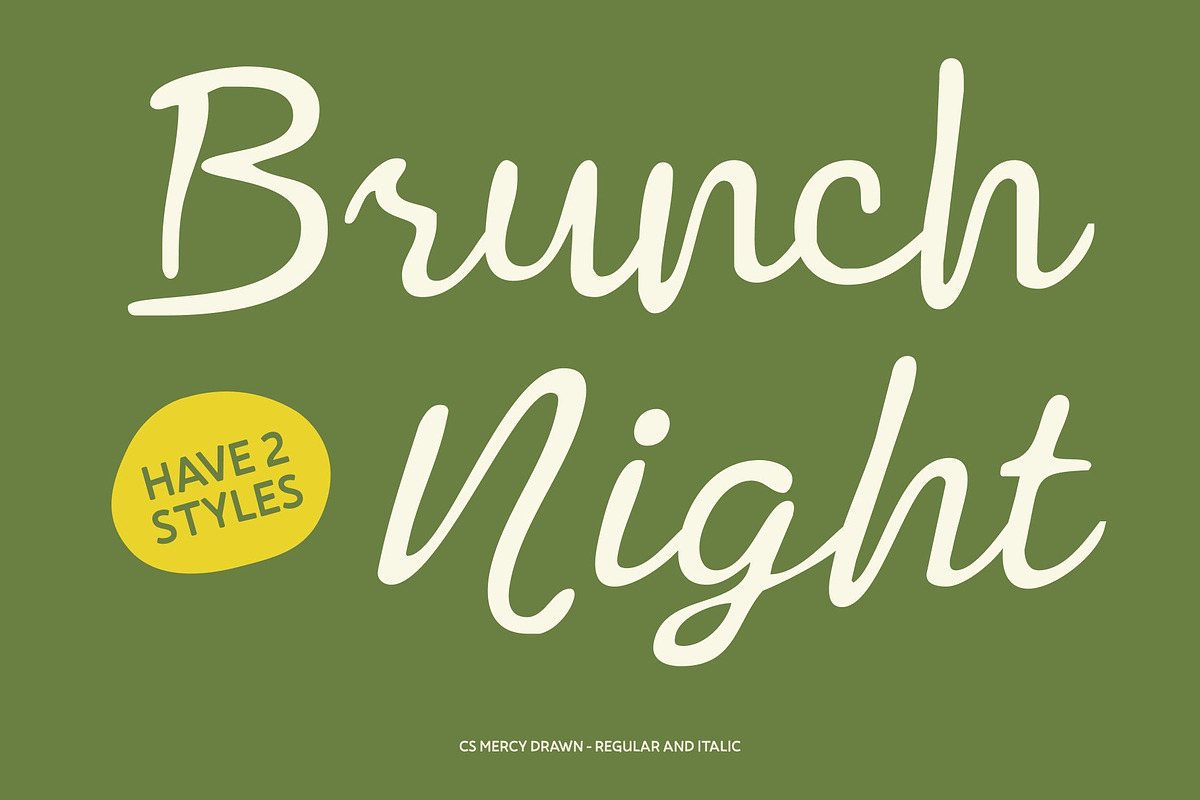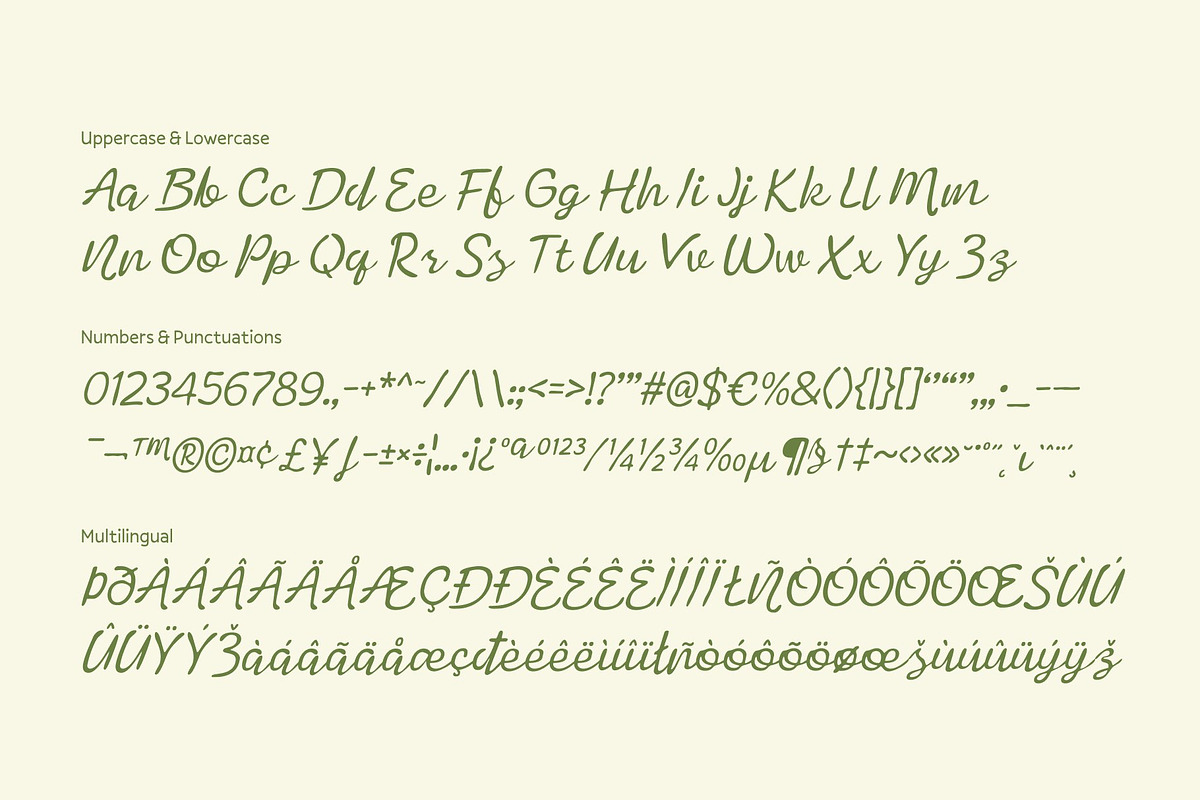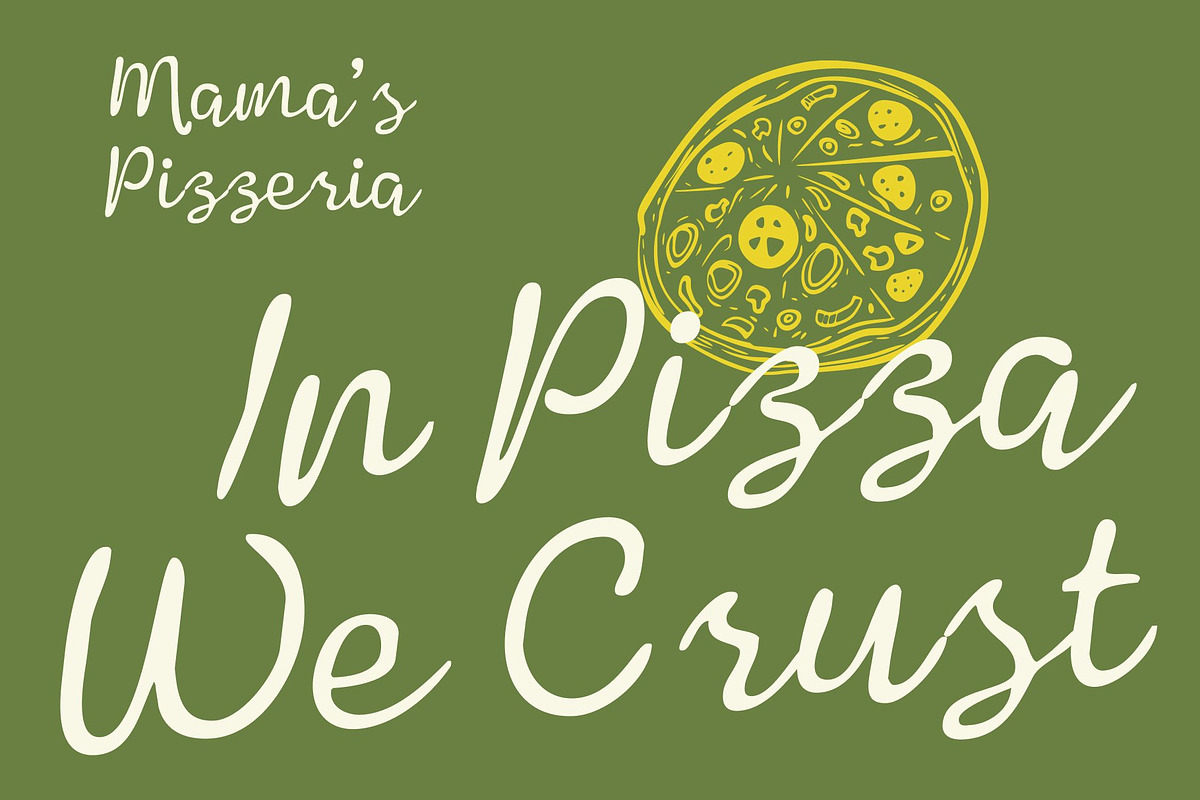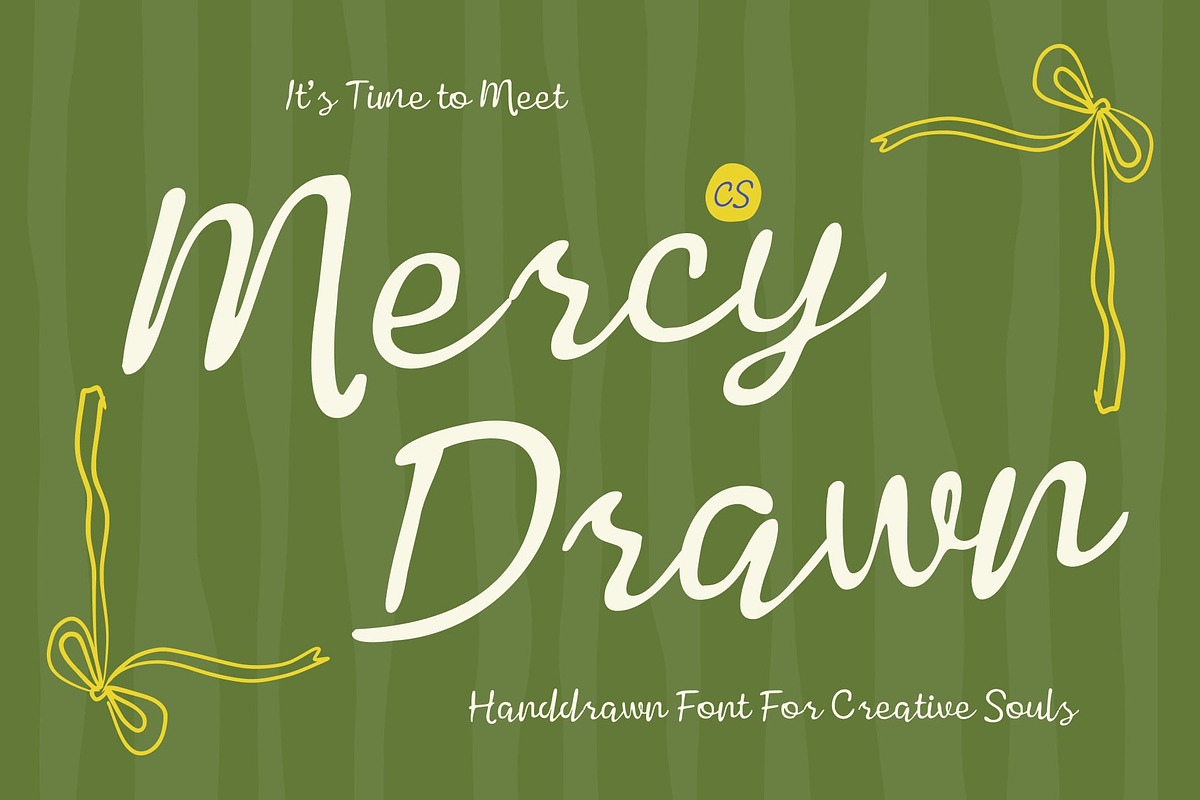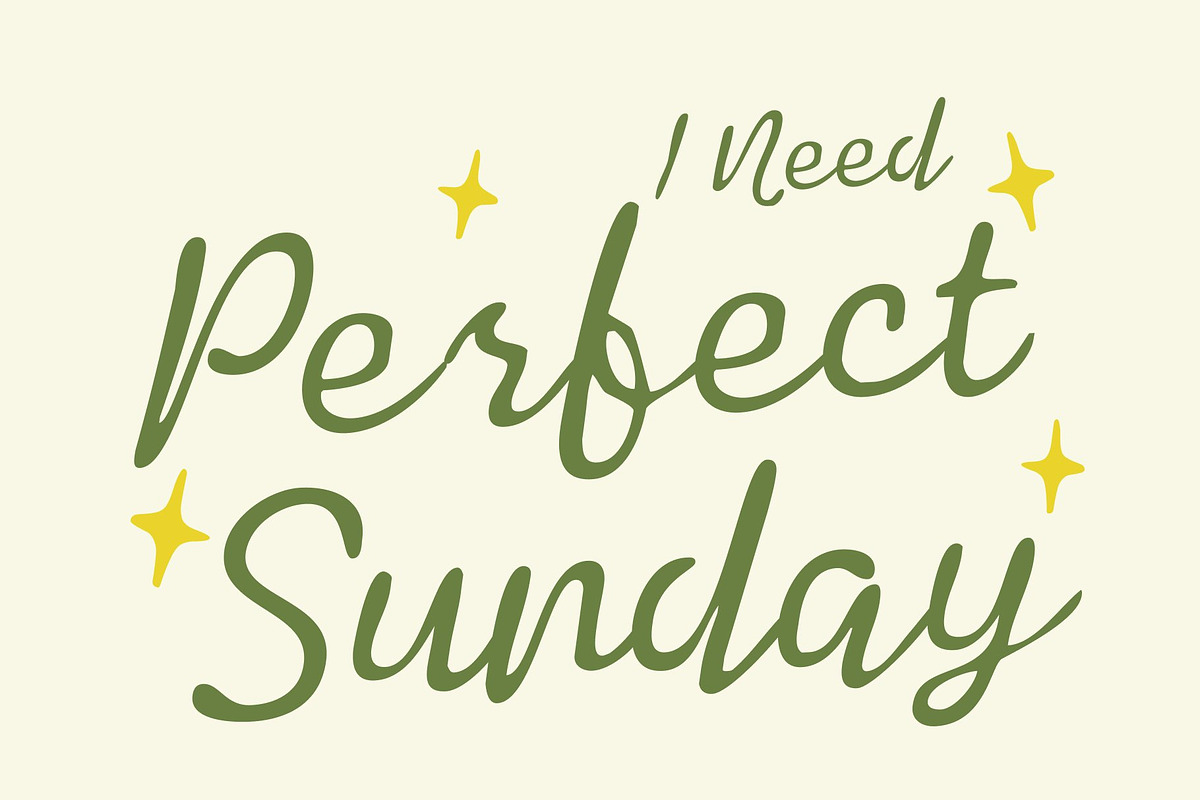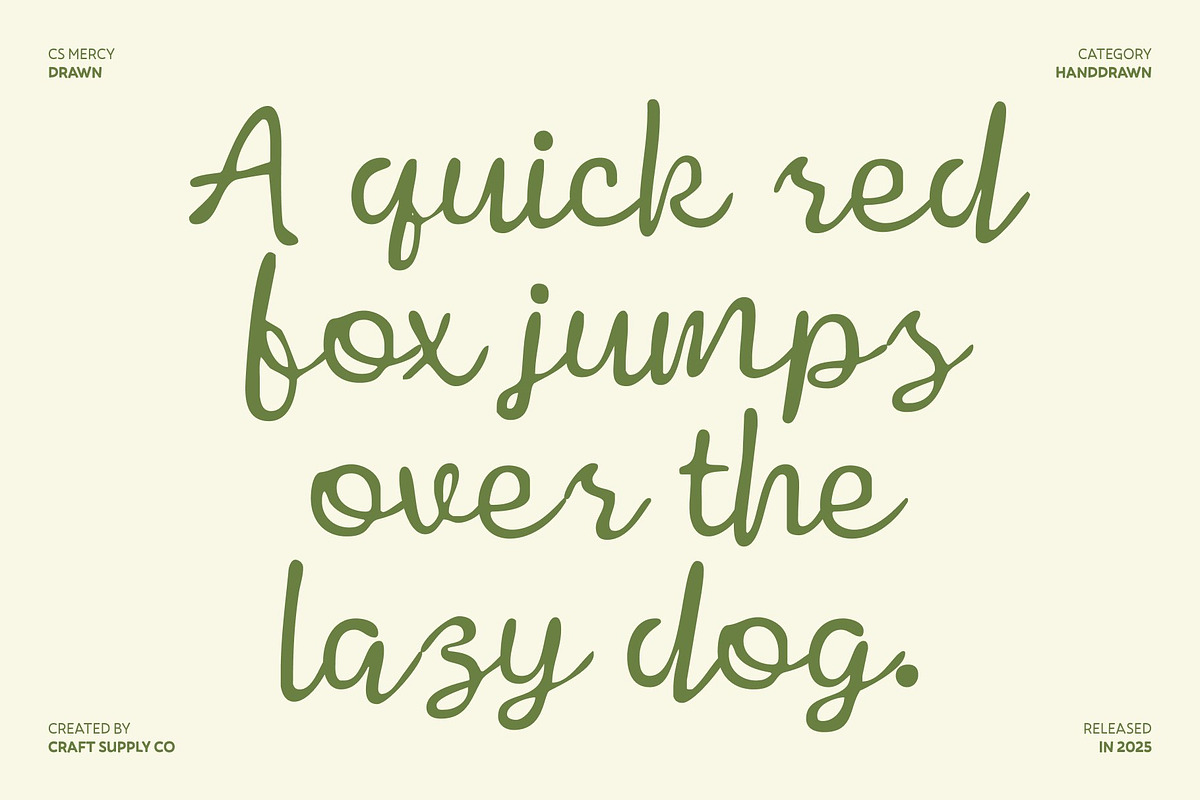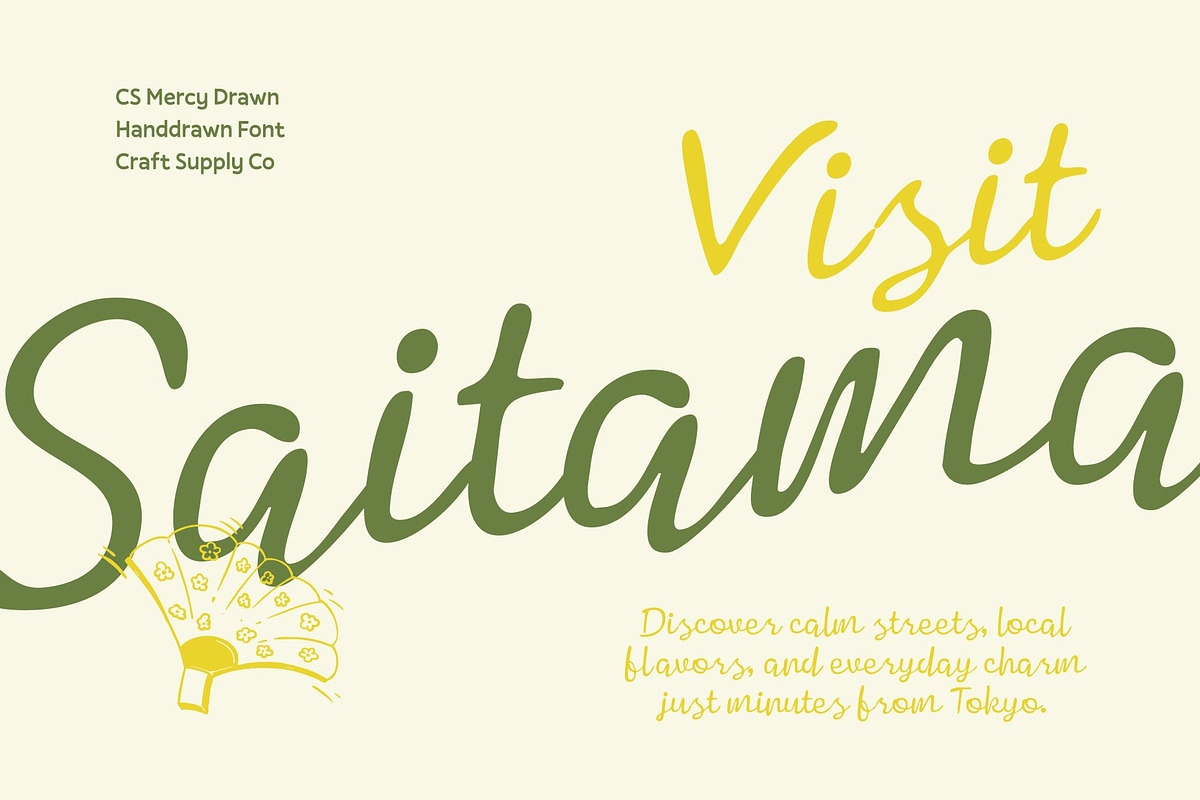
CS Mercy Drawn
CS Mercy Drawn – Script Font: Delicate Elegance with Artistic Character
Graceful Script with Creative Flourishes This is a delicate and expressive script font designed to highlight beauty in every curve. Its flowing cursive forms are enriched with elegant flourishes that feel refined yet natural, allowing each letter to stand apart with graceful confidence. The overall style feels special and intentional, making the font ideal for designs that aim to feel personal, artistic, and emotionally engaging.
Hand-Drawn Texture with Natural Warmth The drawn effect adds subtle texture and organic imperfections to the strokes, giving a handcrafted appearance. This natural texture enhances its authenticity, making the font feel warm, human, and visually rich. The balance between smooth curves and textured detail creates depth without compromising clarity or elegance.
Perfect for Elegant and Creative Applications This font shines in branding, invitations, fashion graphics, beauty packaging, and romantic editorial layouts. Its delicate script style communicates femininity, luxury, and sophistication, while the hand-drawn quality adds a unique artistic touch that helps designs feel distinctive and memorable.
Timeless, Versatile, and Expressive Whether used as a main typographic feature or paired with clean modern fonts, this font adapts beautifully across projects. It brings charm, refinement, and natural beauty to any composition, making it a timeless choice for creatives seeking elegance with a handcrafted soul.